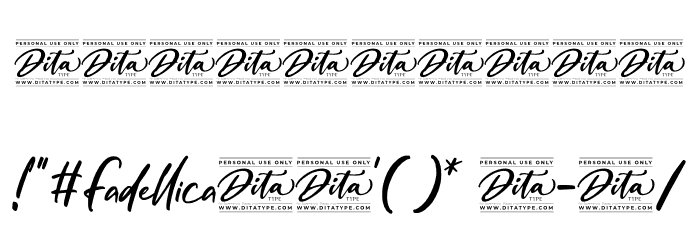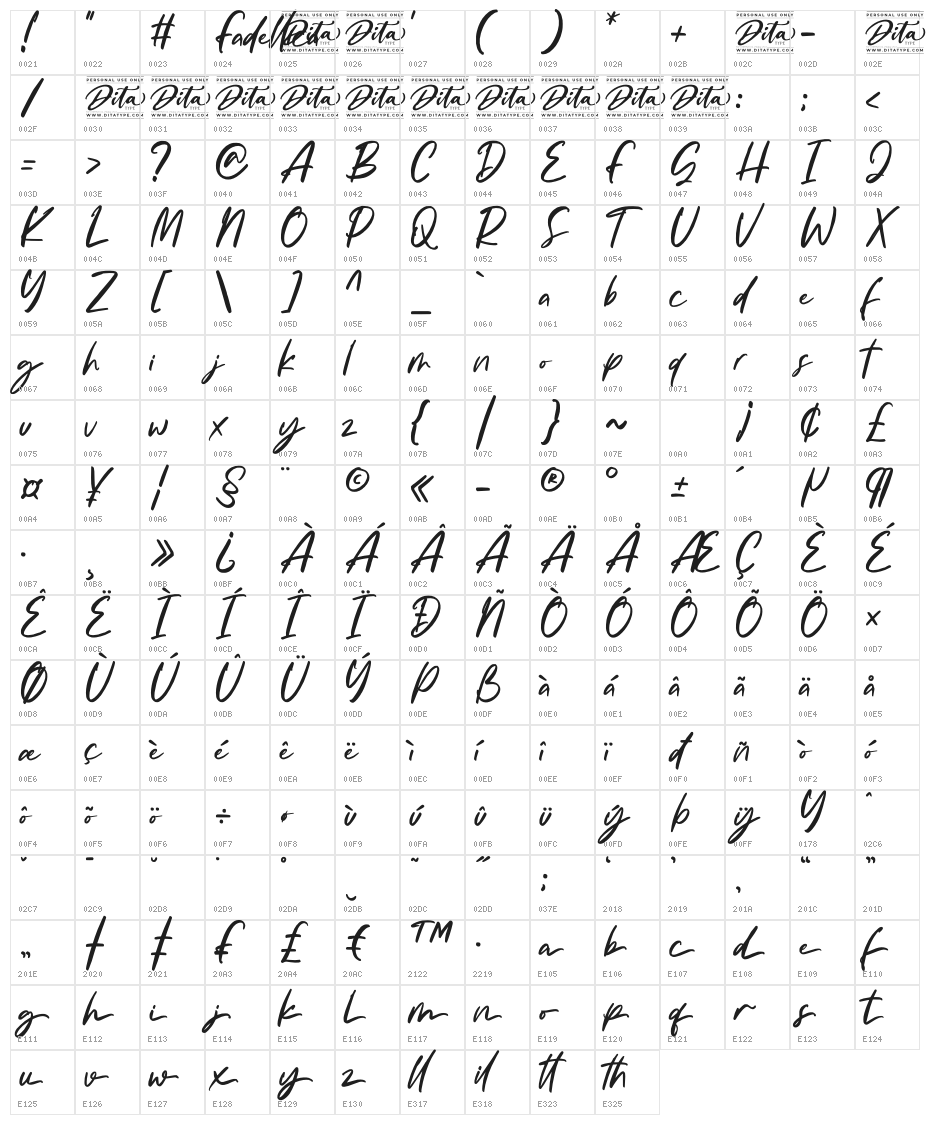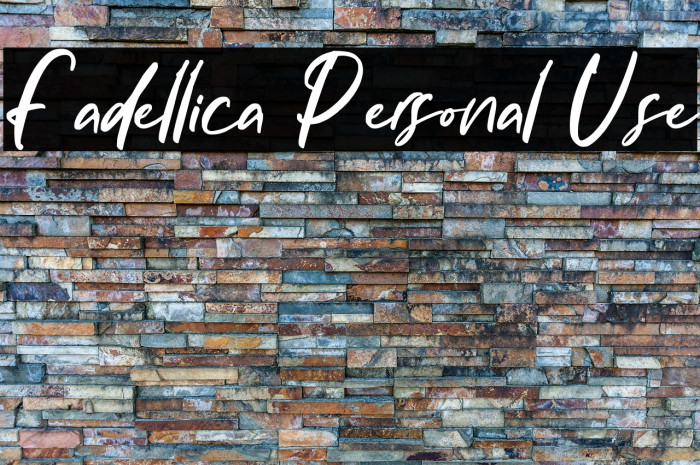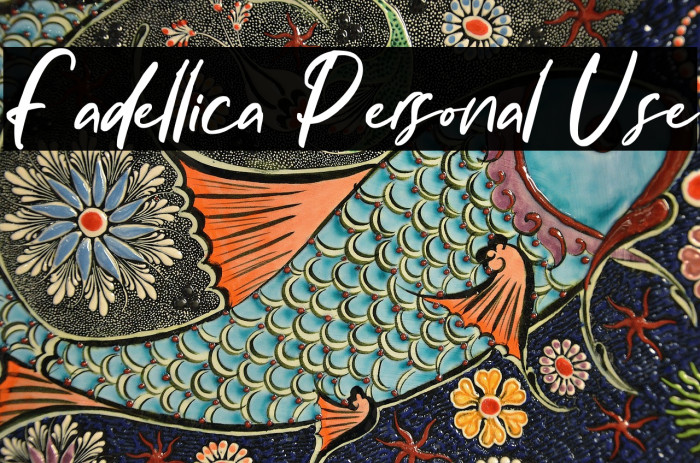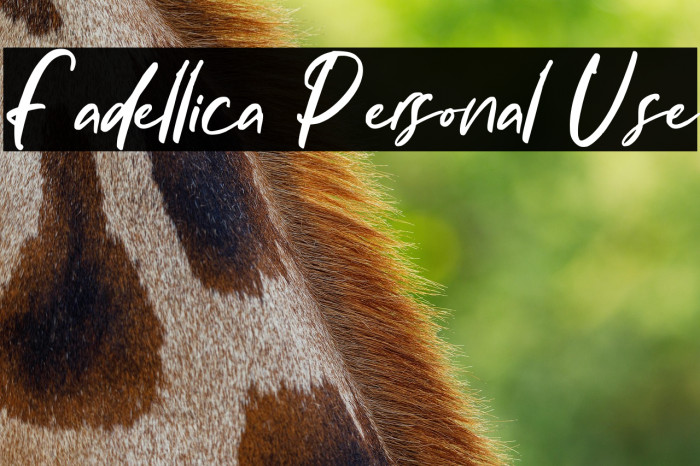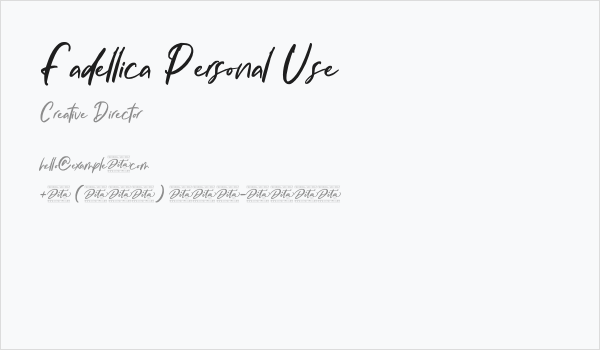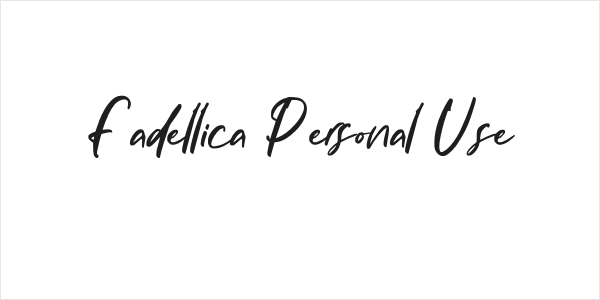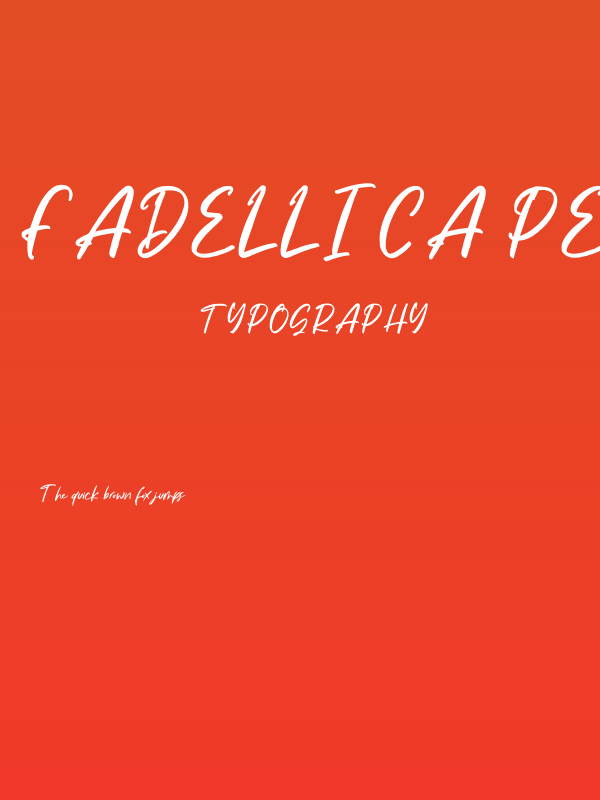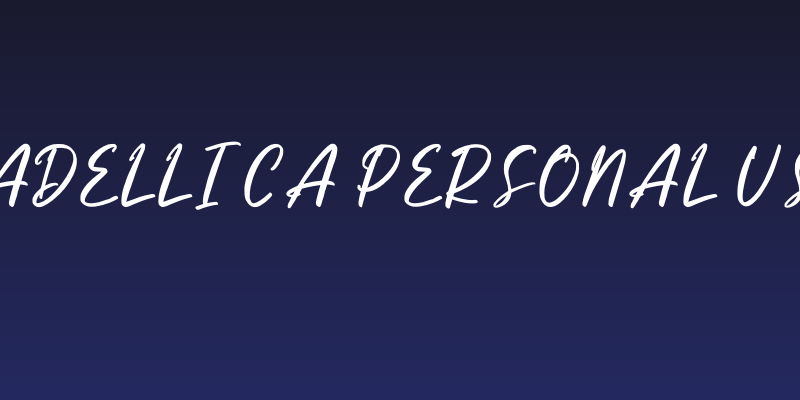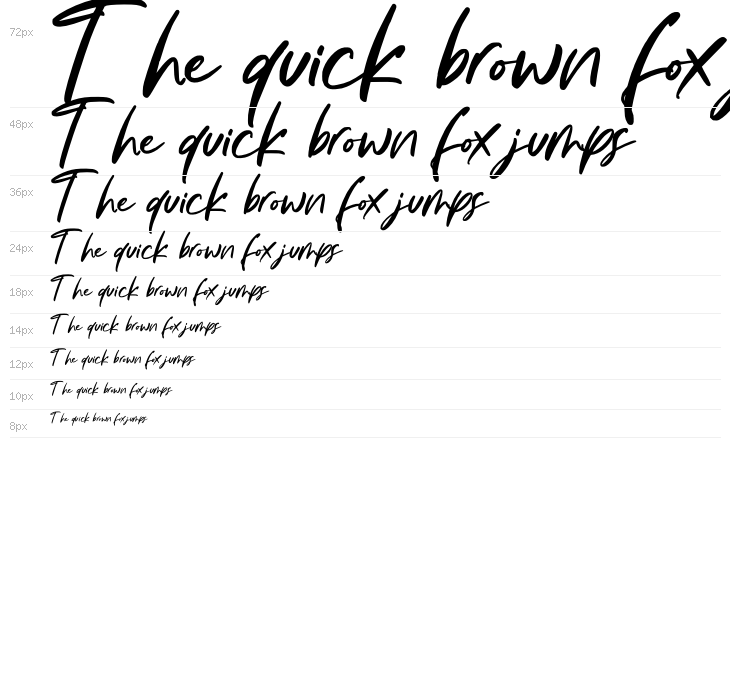
Fadellica Personal Use Font
Fadellica Personal Use Description
This font features a dynamic and expressive handwritten style, characterized by its fluid and slightly slanted letterforms. The strokes are bold and confident, with a natural flow that mimics authentic handwriting. The uppercase letters are slightly more structured, while the lowercase letters exhibit a playful and casual feel. The font includes a full set of uppercase and lowercase letters, numbers, and a variety of special characters. Its overall appearance is modern and artistic, making it suitable for creative and informal projects.
Use CaseLogos, Headlines, Creative projects
Proposed ProjectsIdeal for branding, invitations, social media graphics, and personal projects that require a touch of personality and creativity.